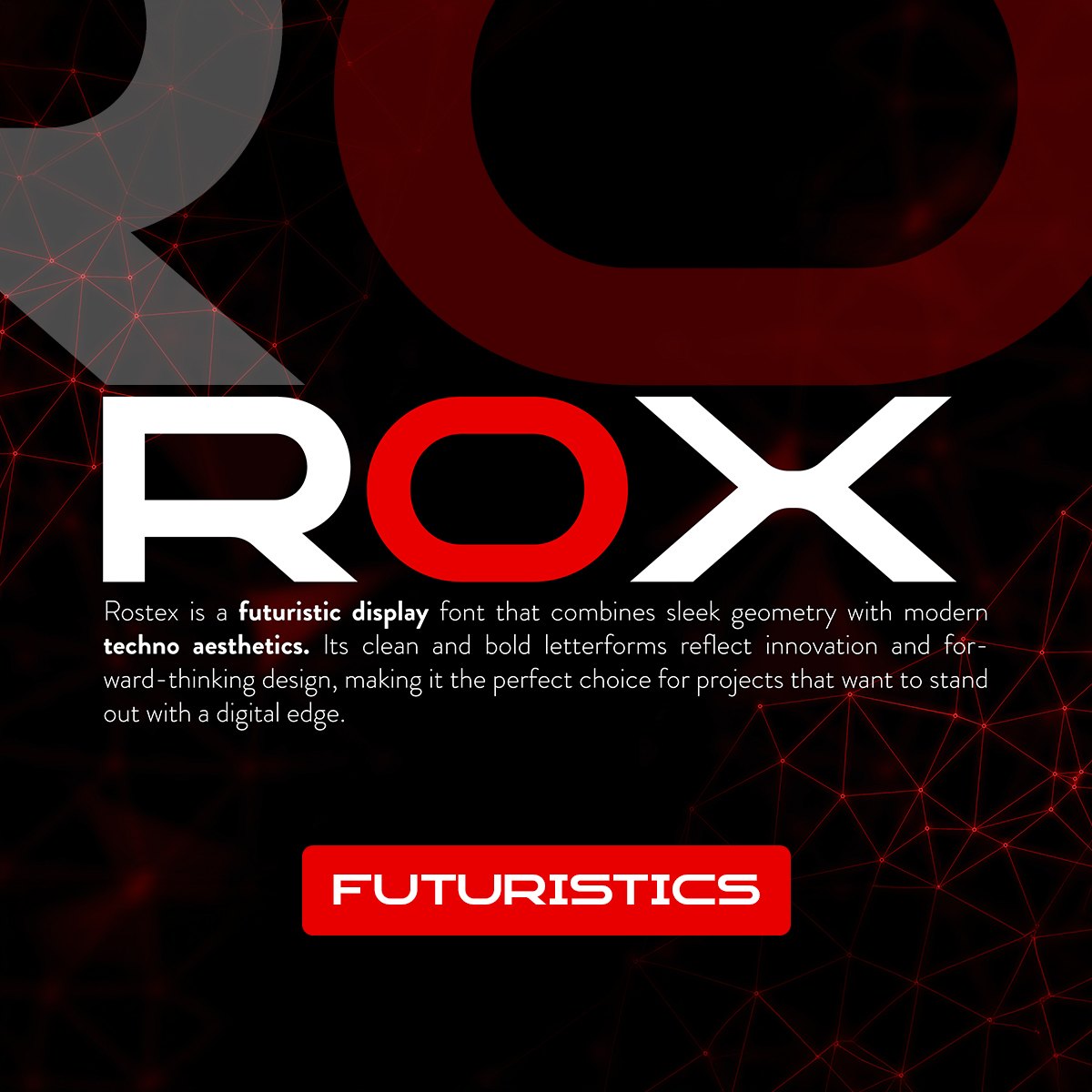
Rox futuristics font
Rox Futuristic Font is a bold and modern display font perfect for logos, ads, creatives, stickers, PPT presentations, branding, posters, and social media designs. Download it free and give your projects a futuristic, professional look. Subscribe to the official VikDesign YouTube channel.